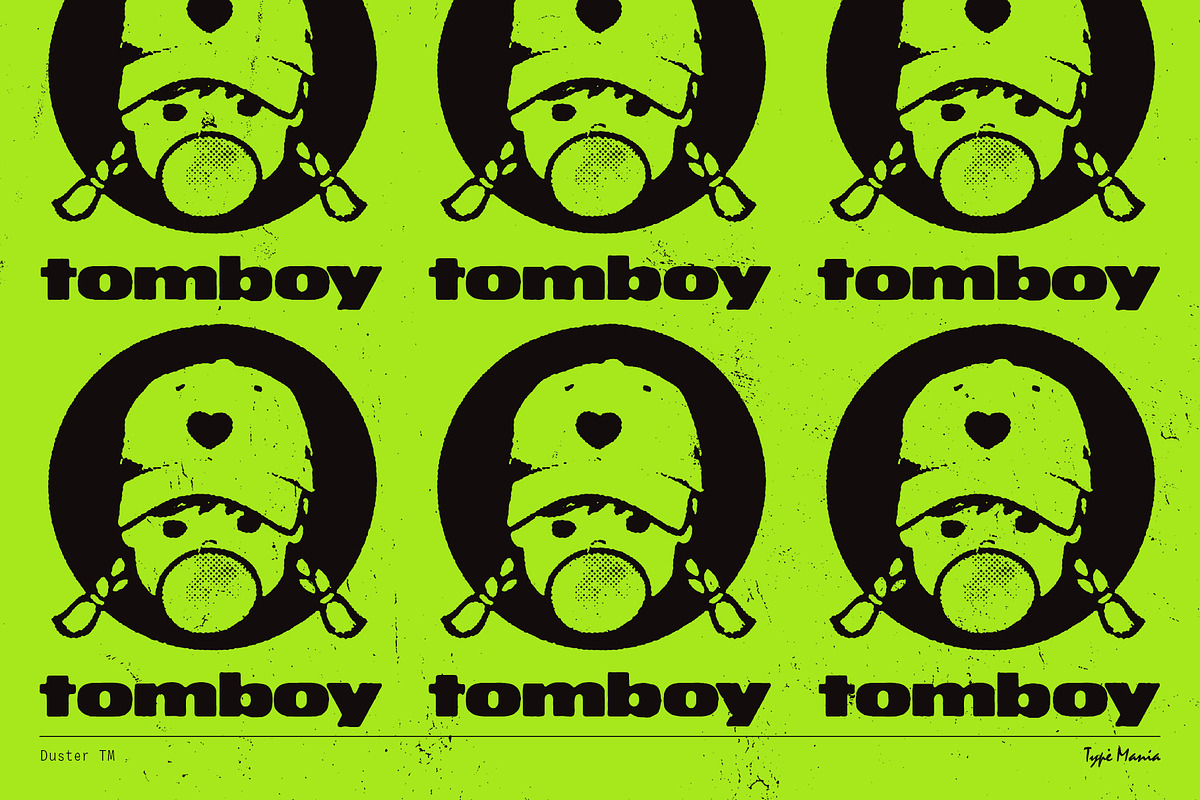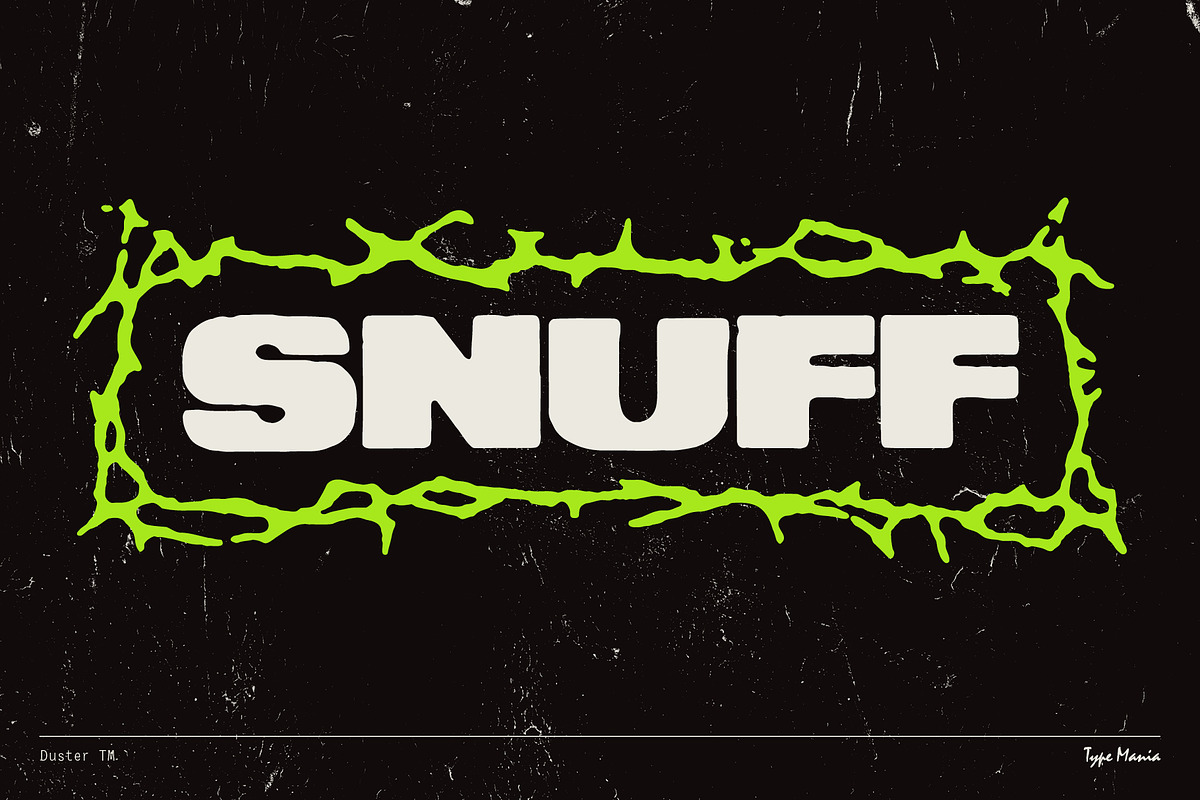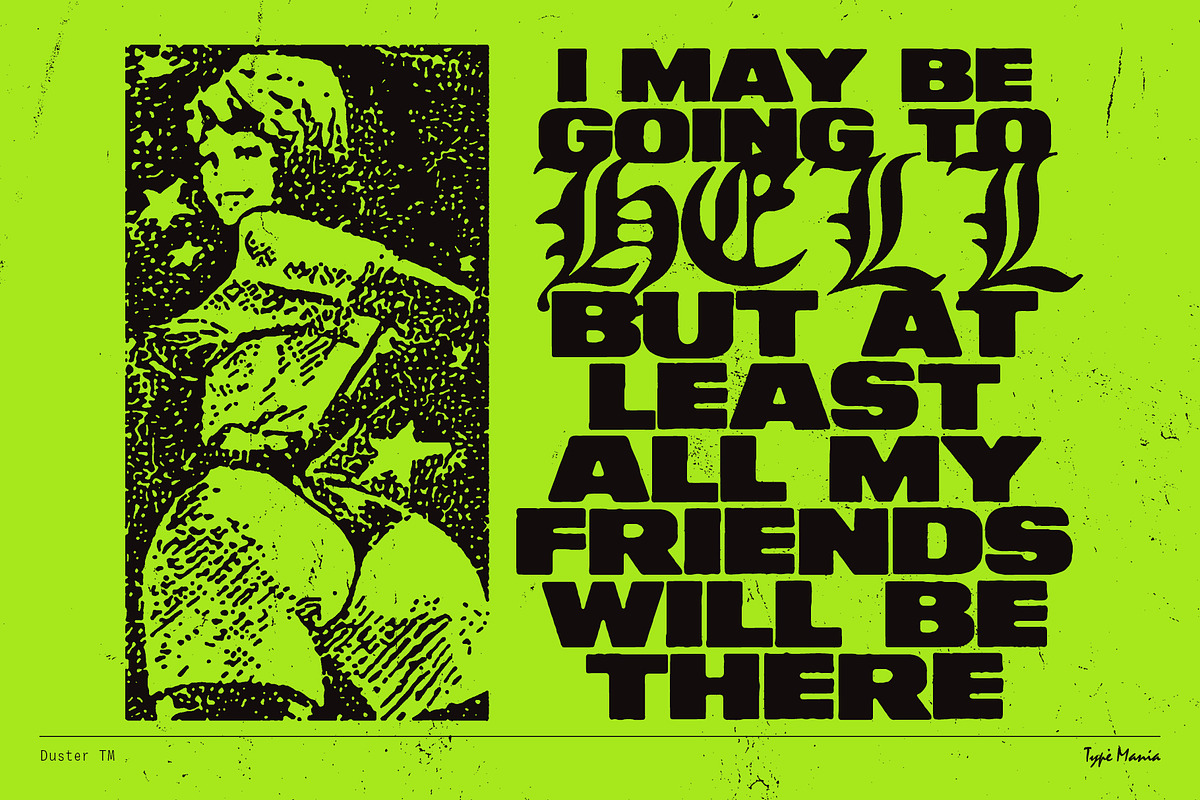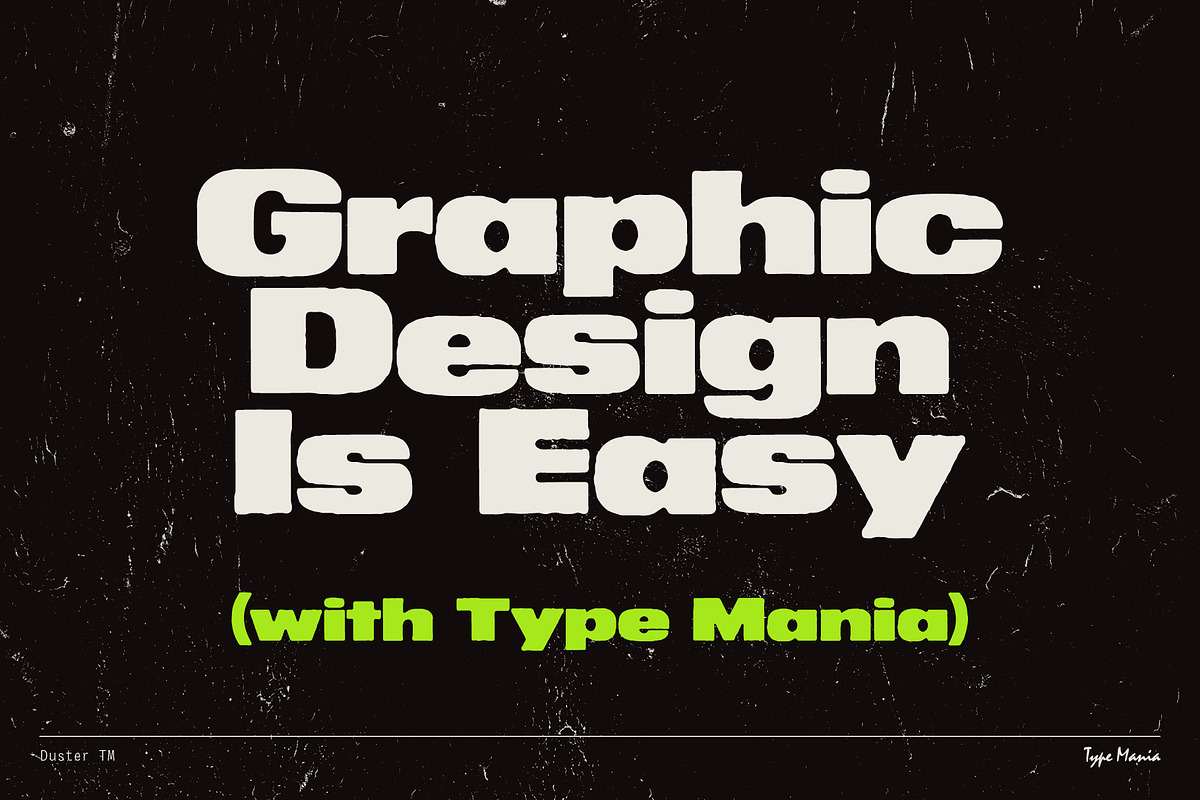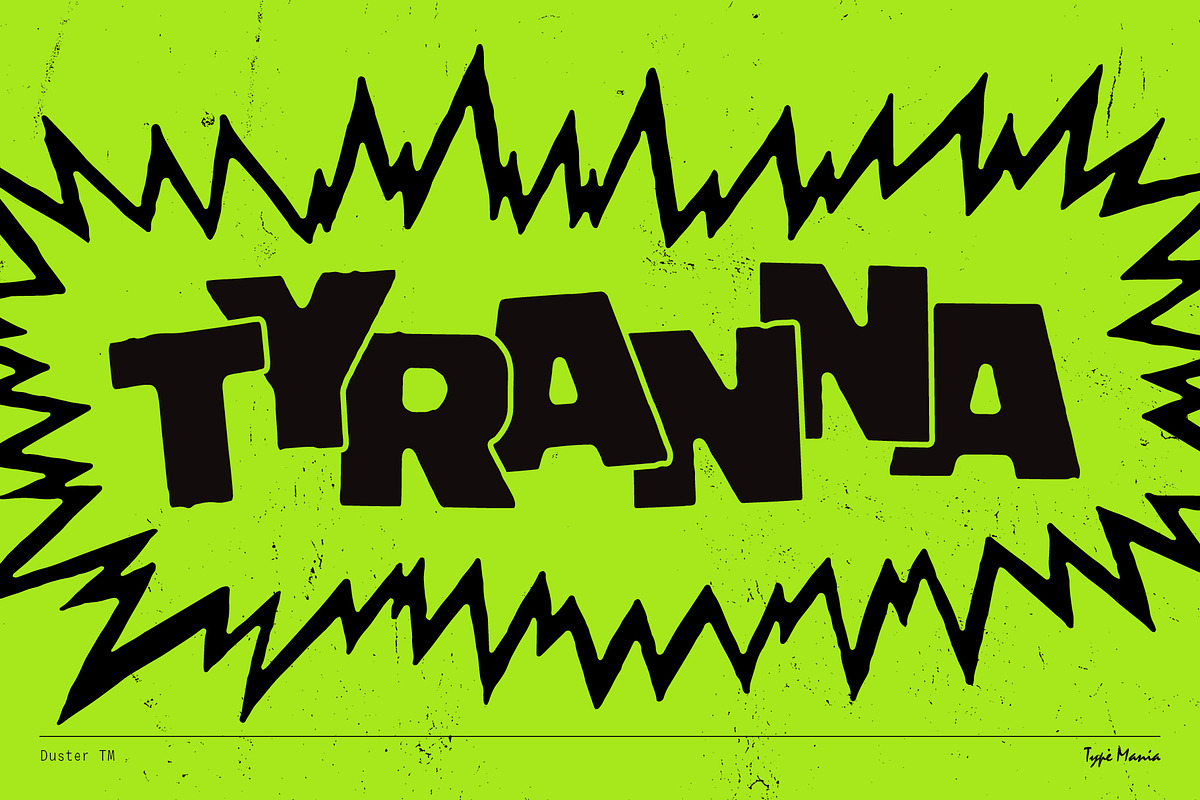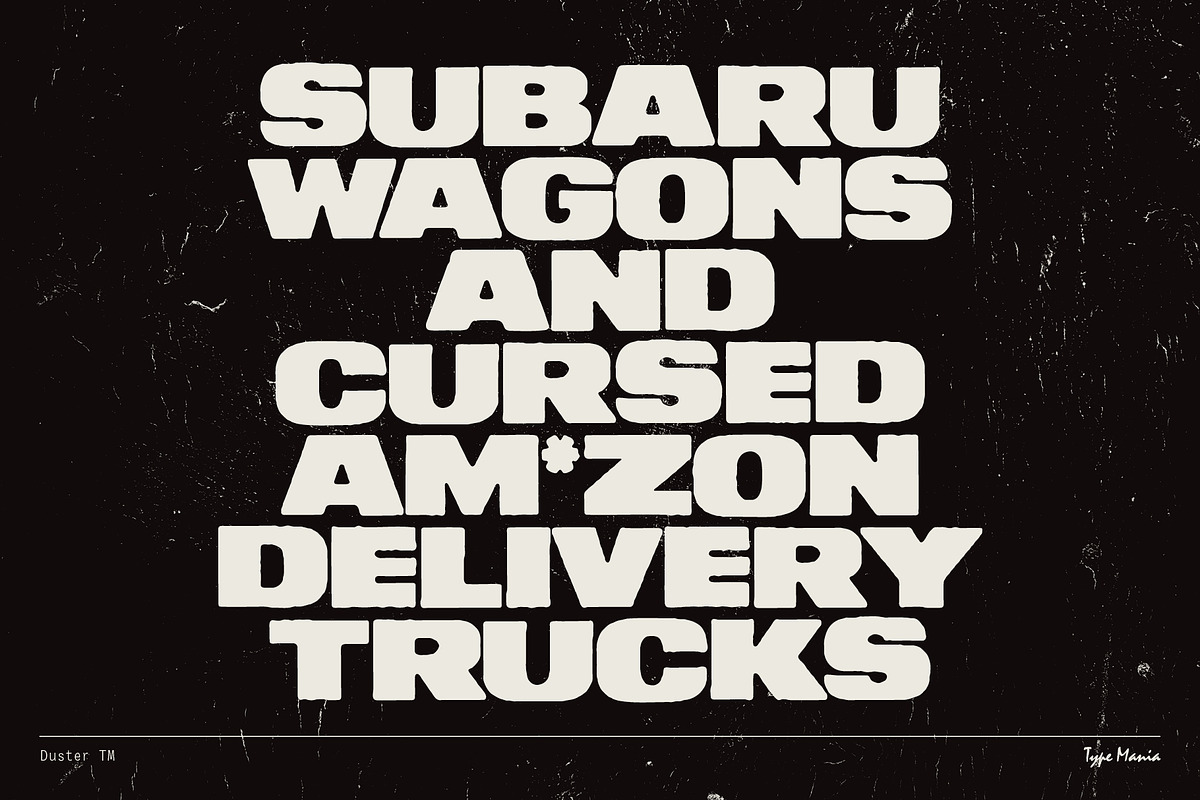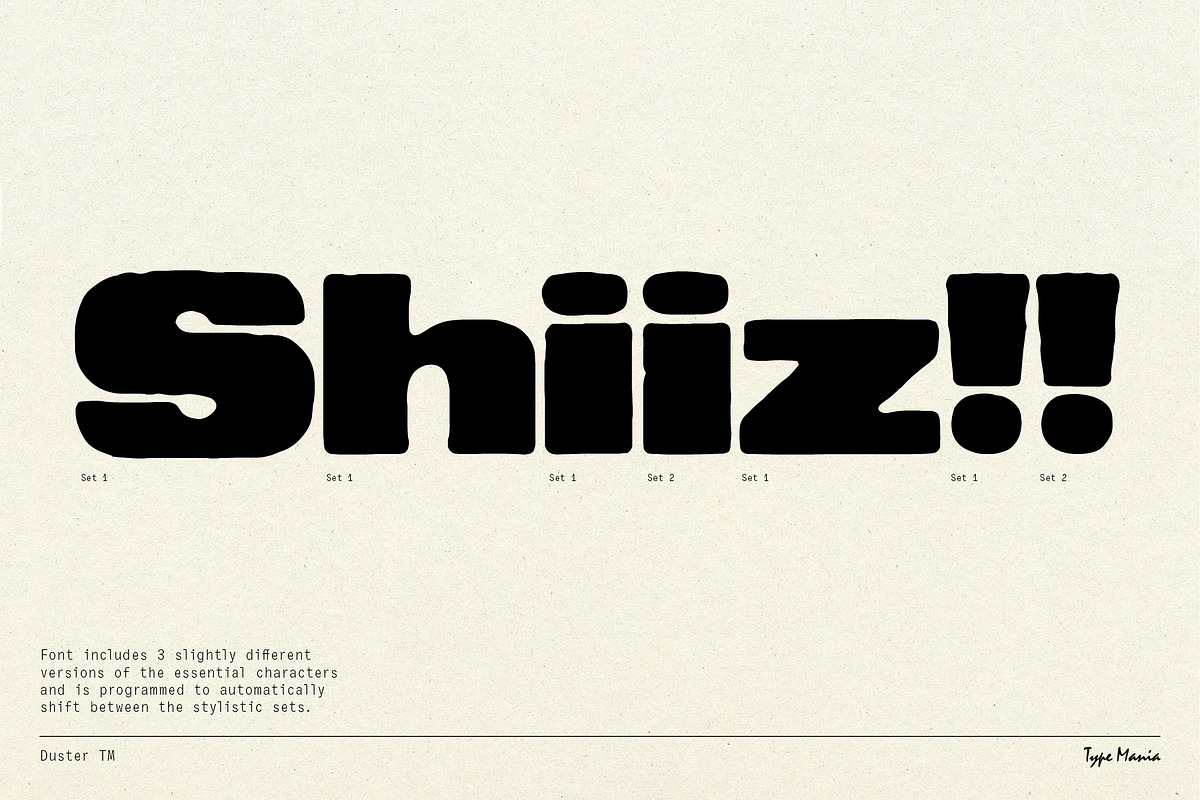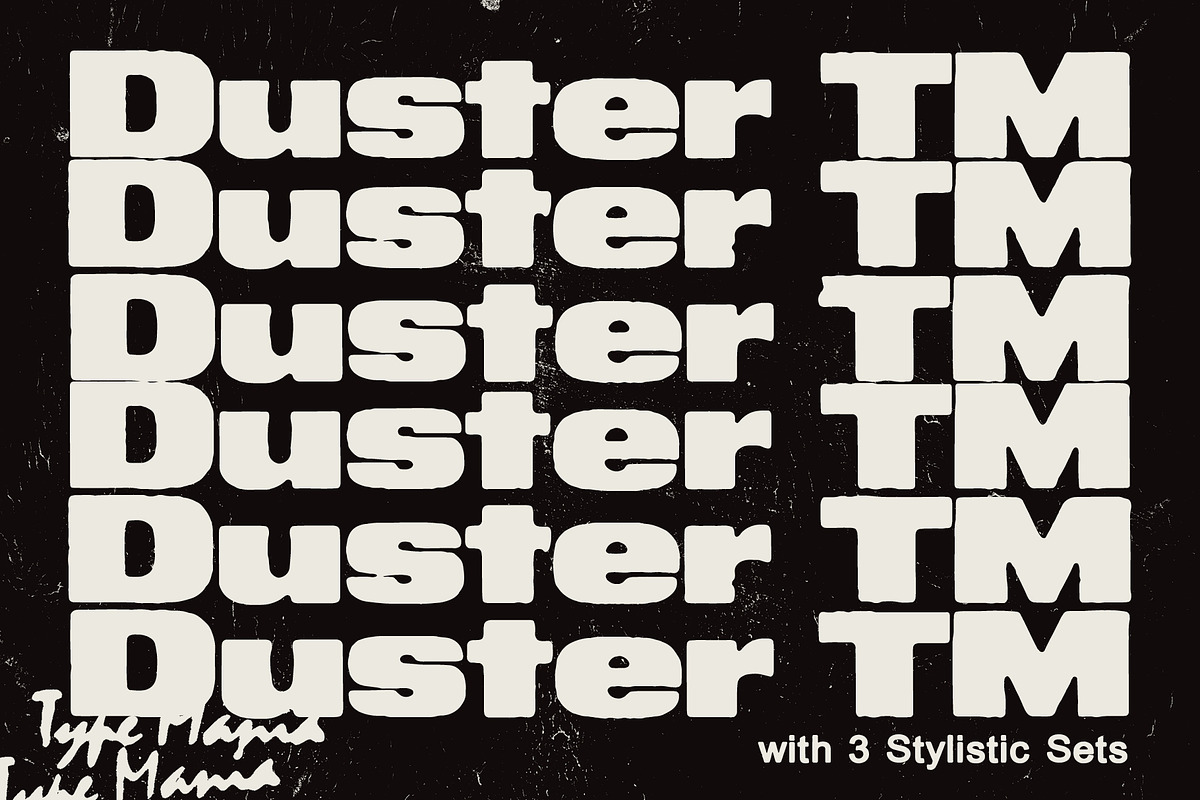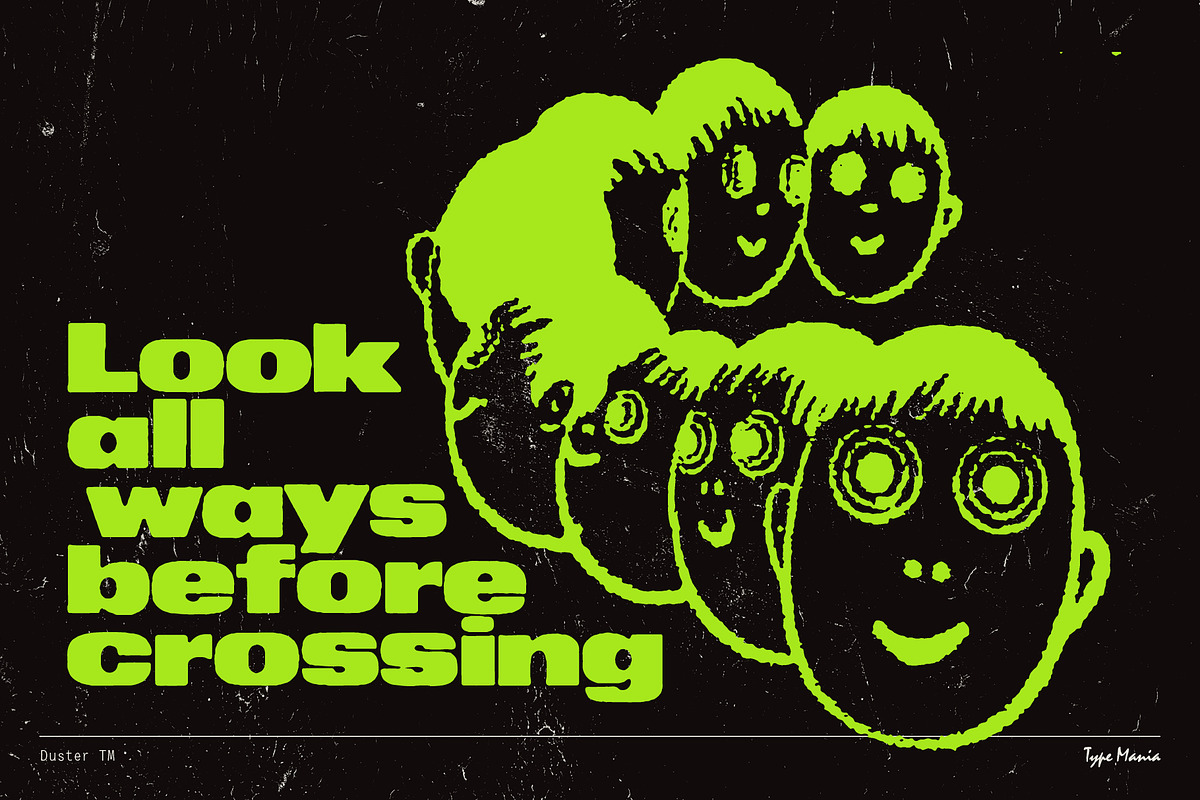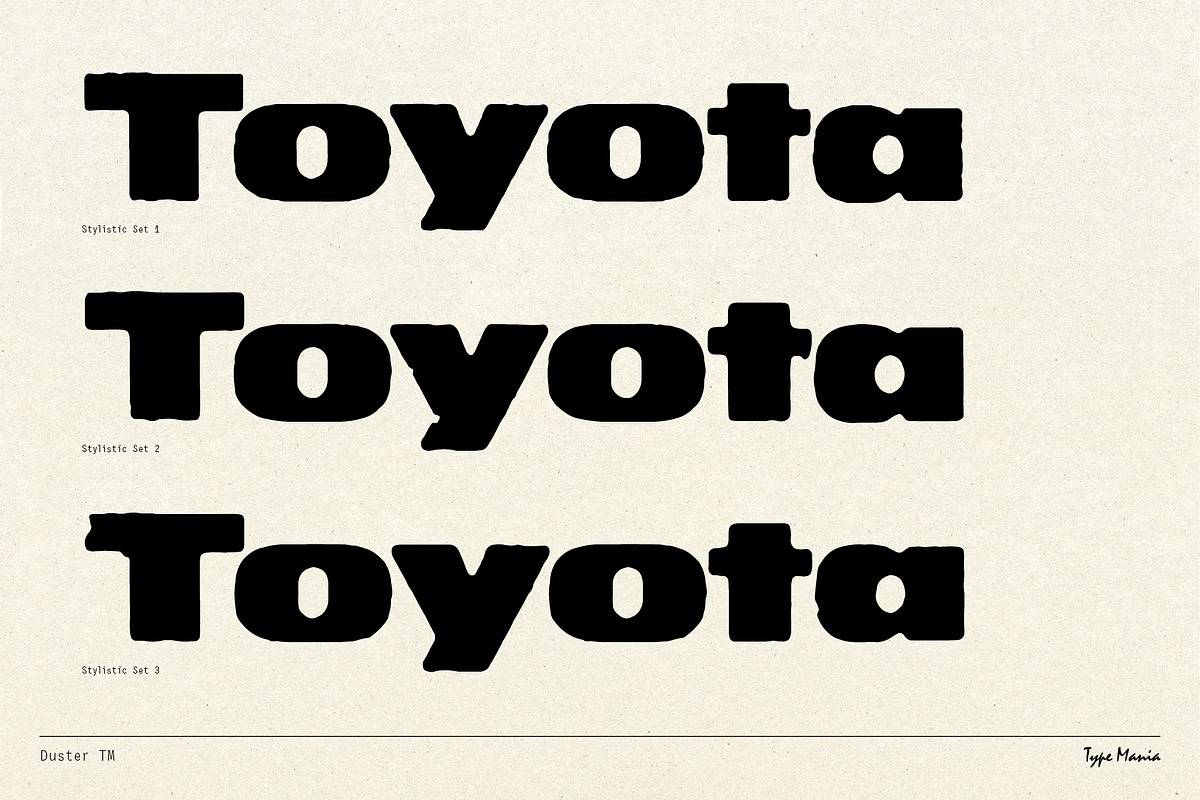
Duster TM – Heavy Distressed Type
With its weathered, worn-in look, Duster TM adds a gritty vibe to any project, be it a flyer for an underground rave event or social media campaign. With 3 stylistic sets you can create dynamic layouts at e-z. Get rugged, get bold, get Duster TM today.
OpenType features
- 3 stylistic sets
- The font is programmed to automatically shift between the stylistic sets whenever the same glyphs are typed side by side